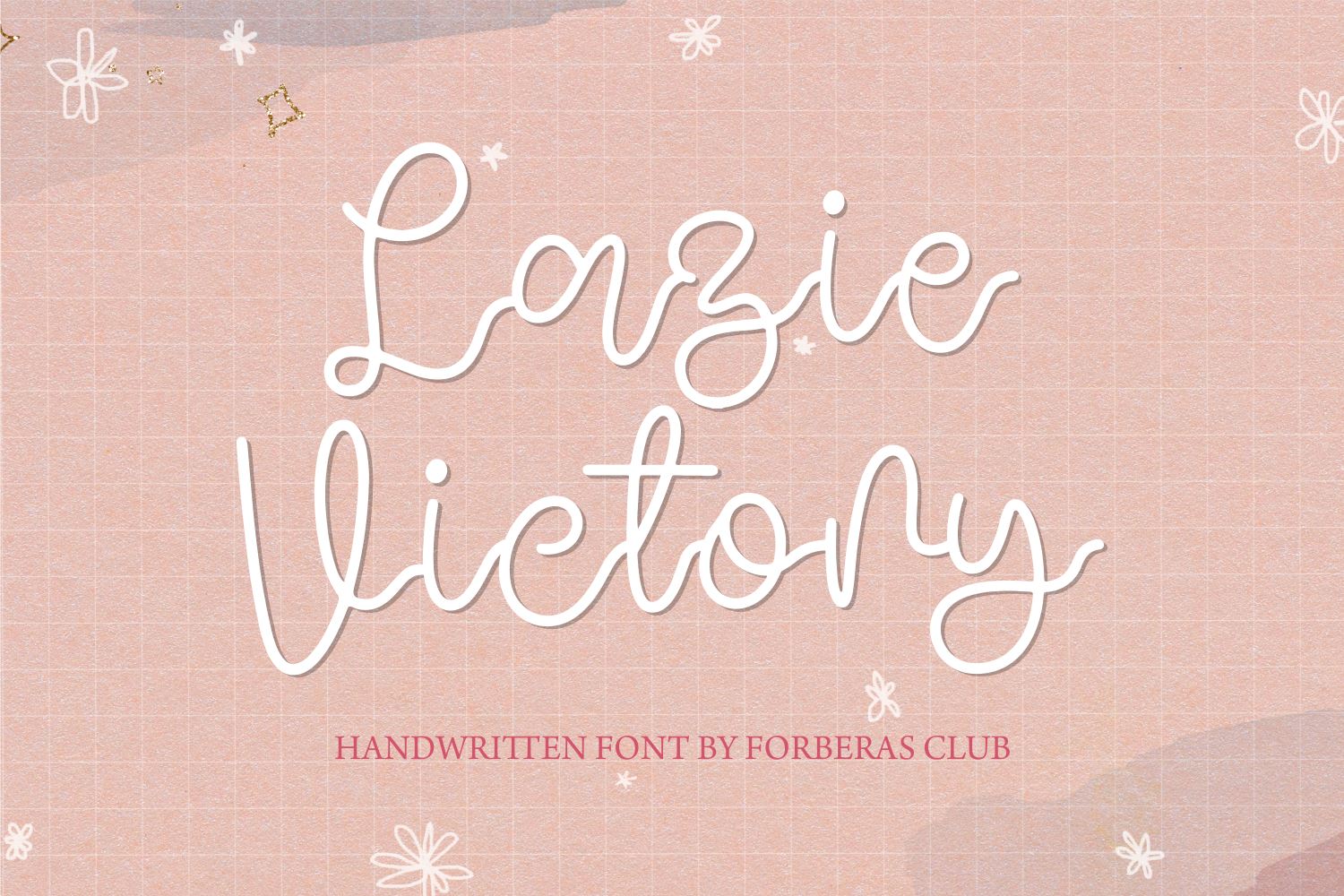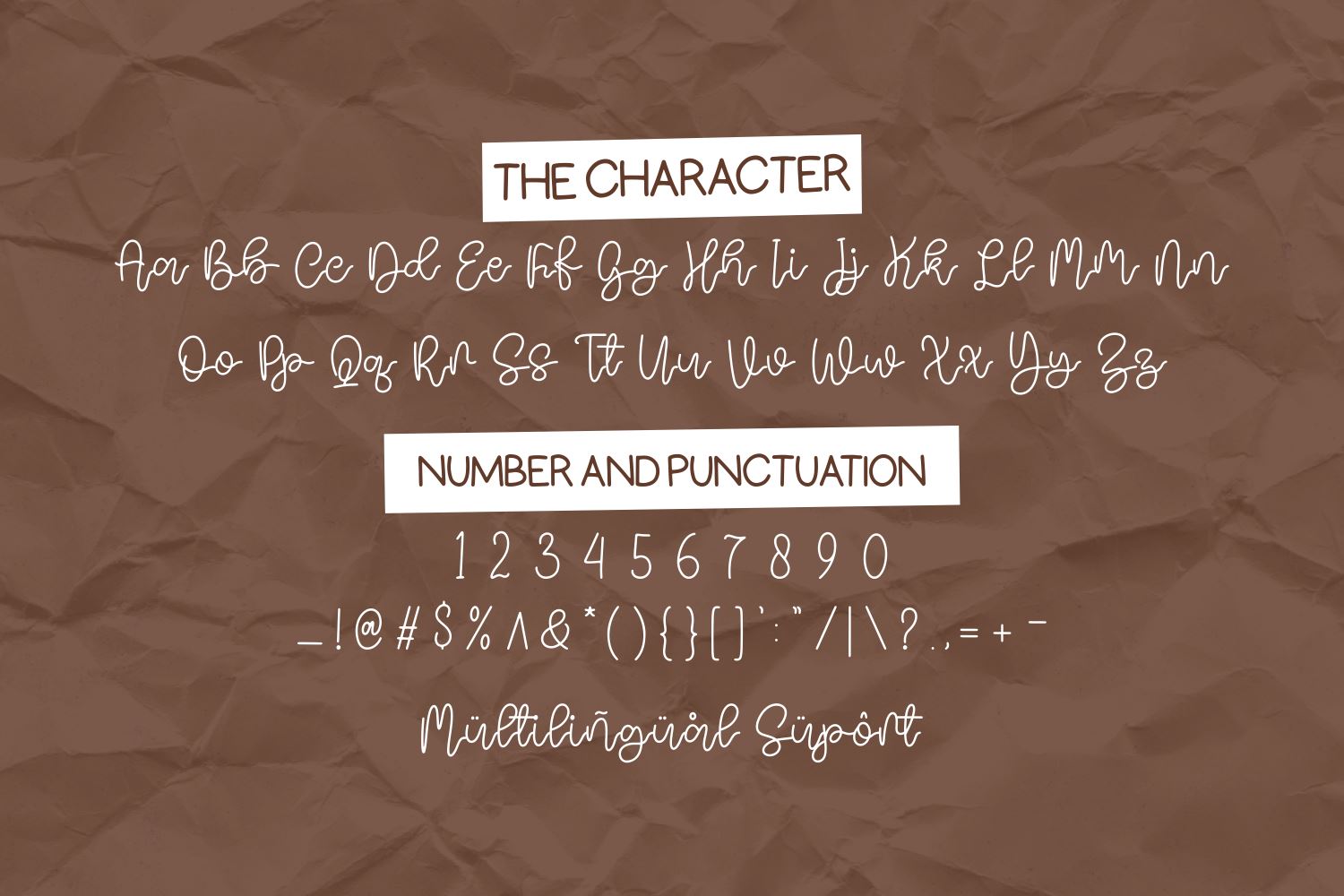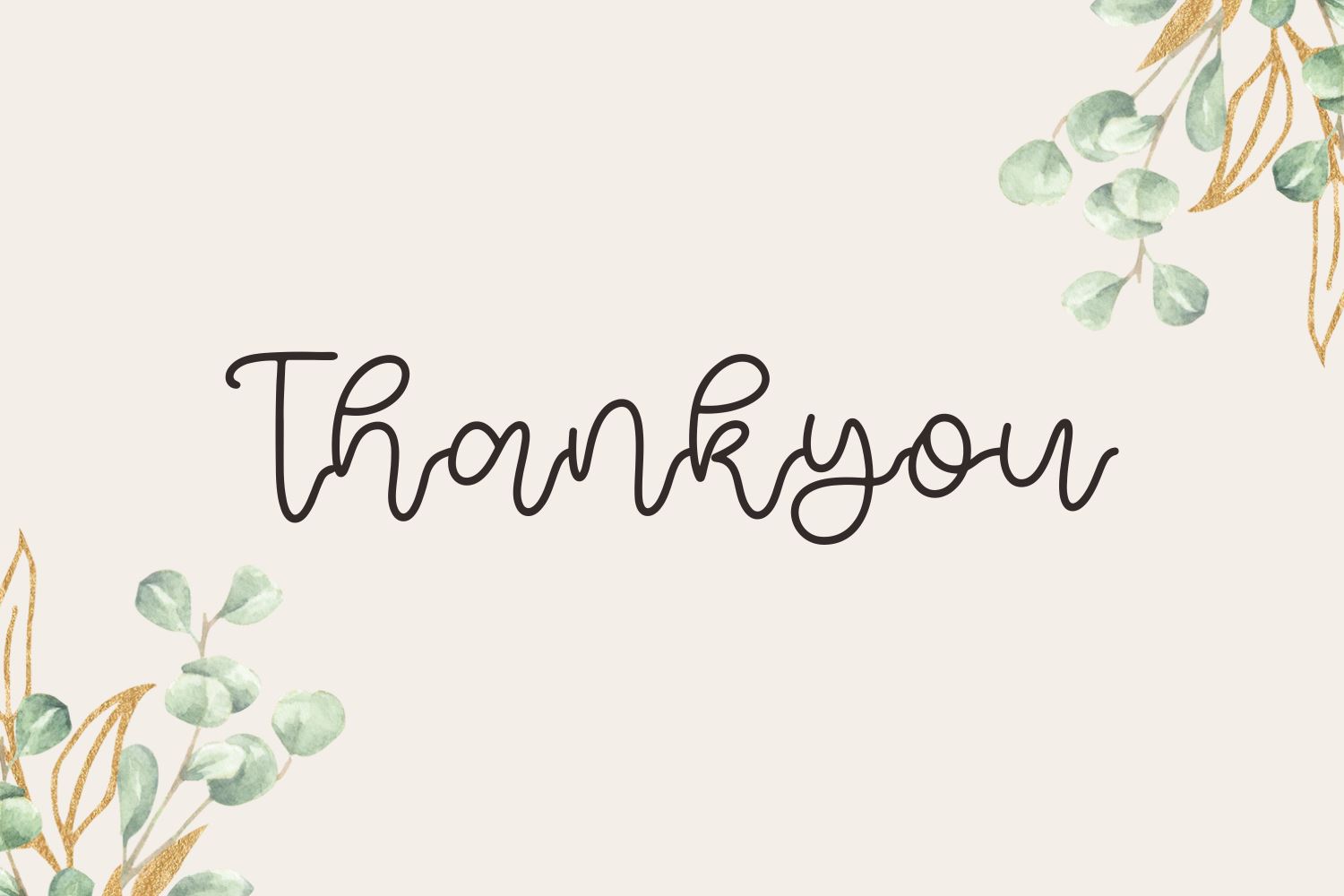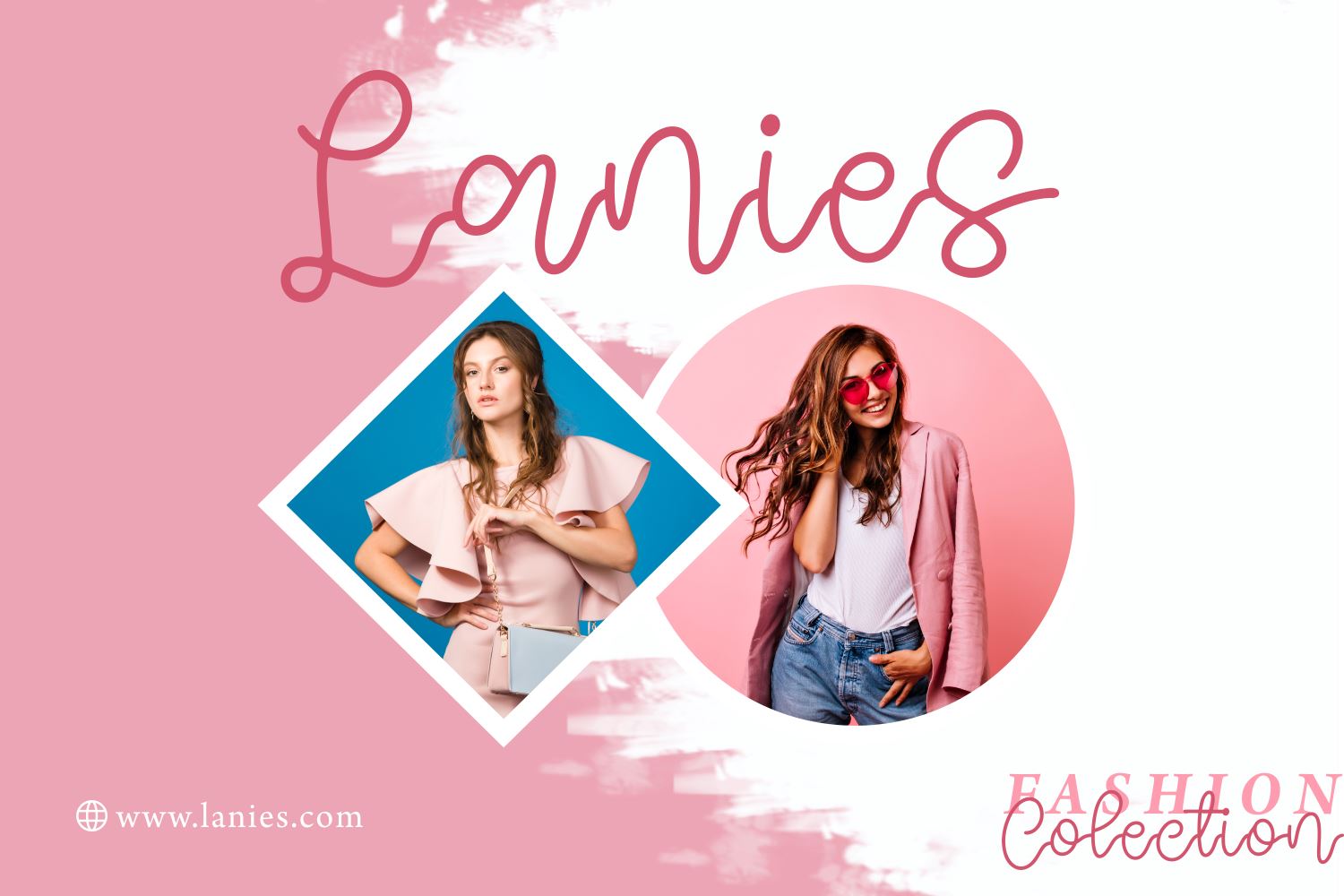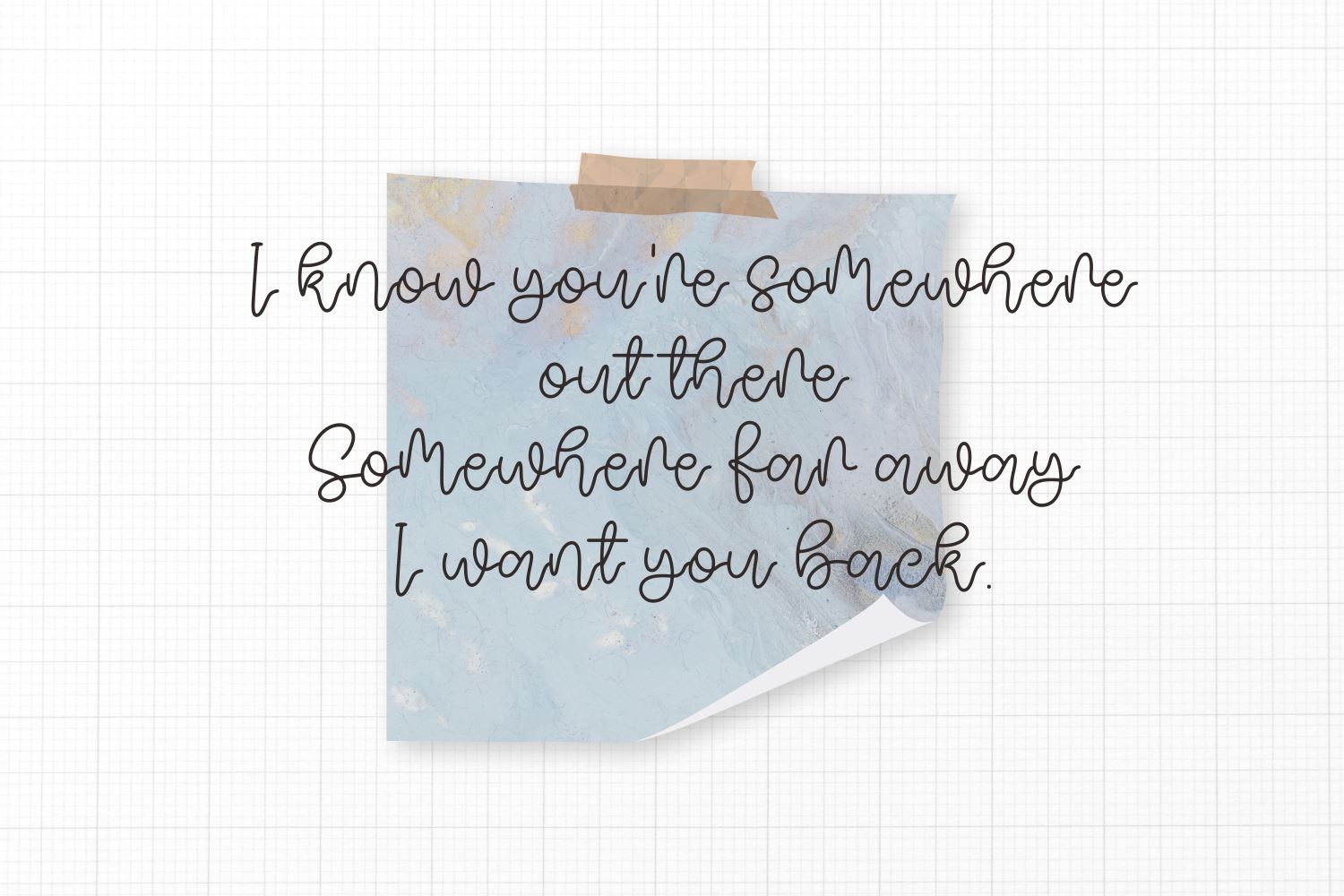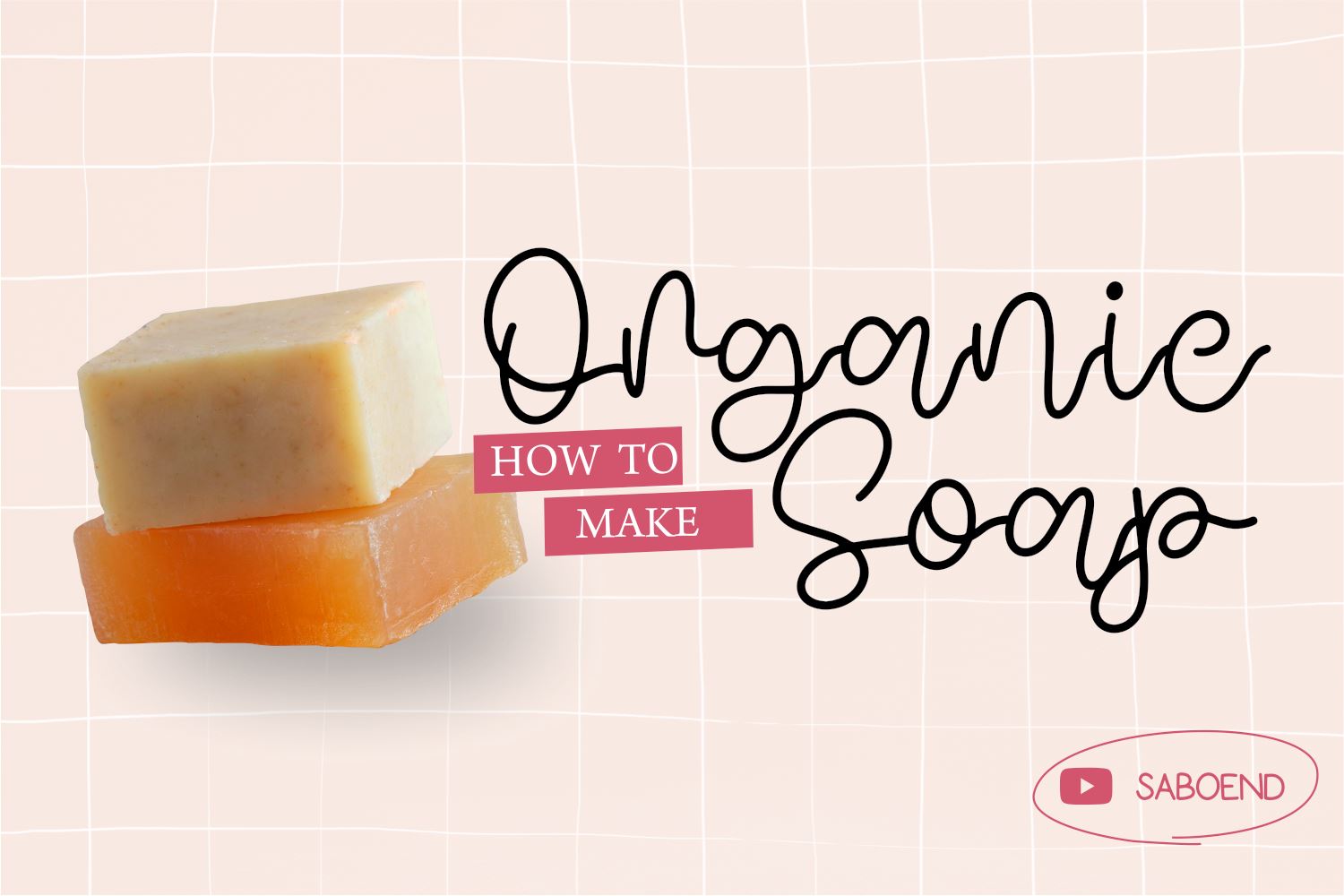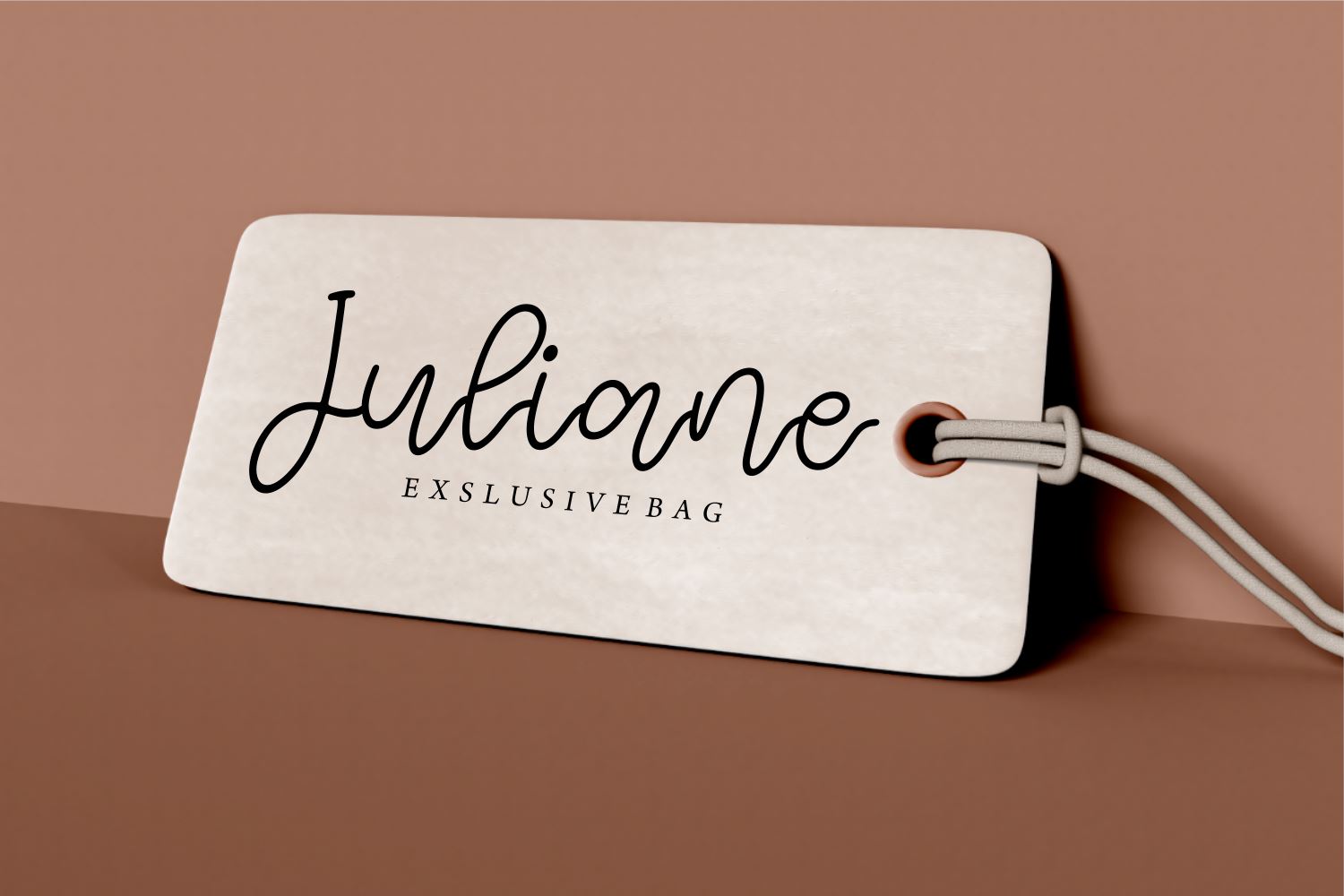
Lazie Victory
Introducing Lazie Victory Font by Forberas Club Lazie Victory is a Modern Handwritten Font. Lazie Victory perfect for book cover, product packaging, branding project, megazine, social media, skate zine, band font, or just used to express words above the background. This font includes TTF and OTF, This font also multilingual support.